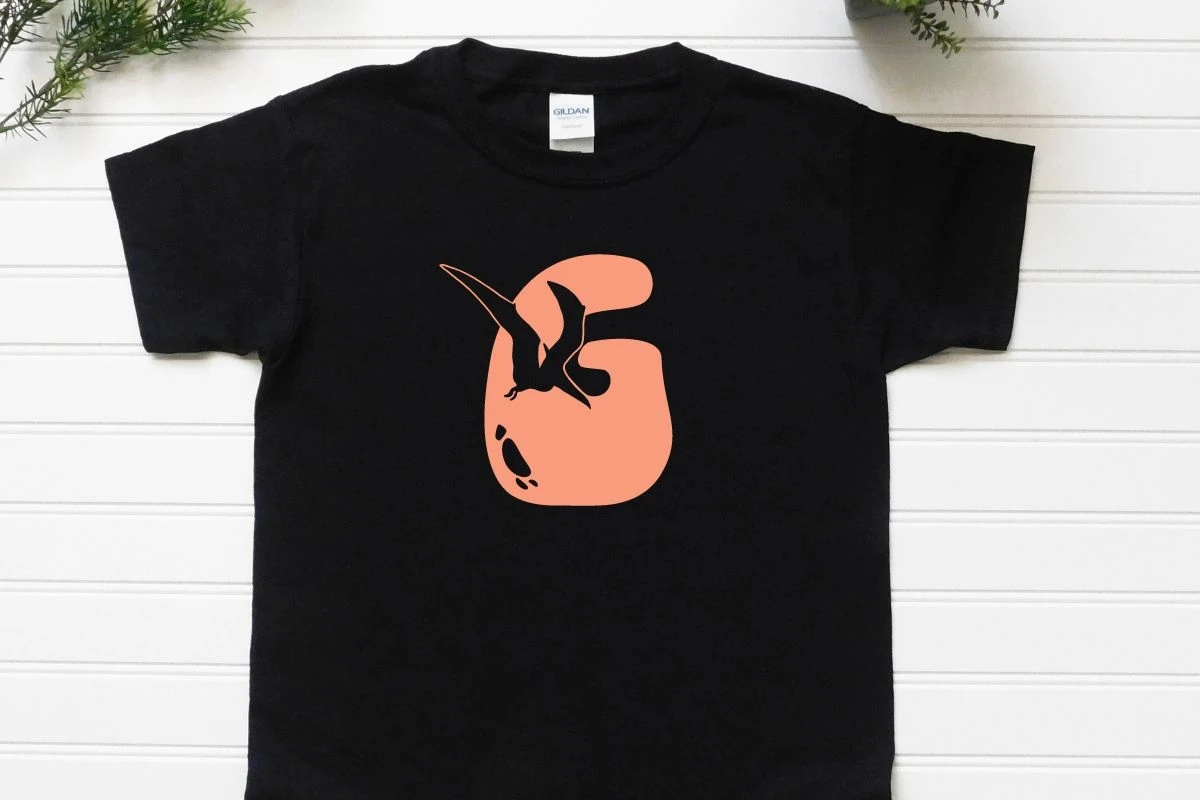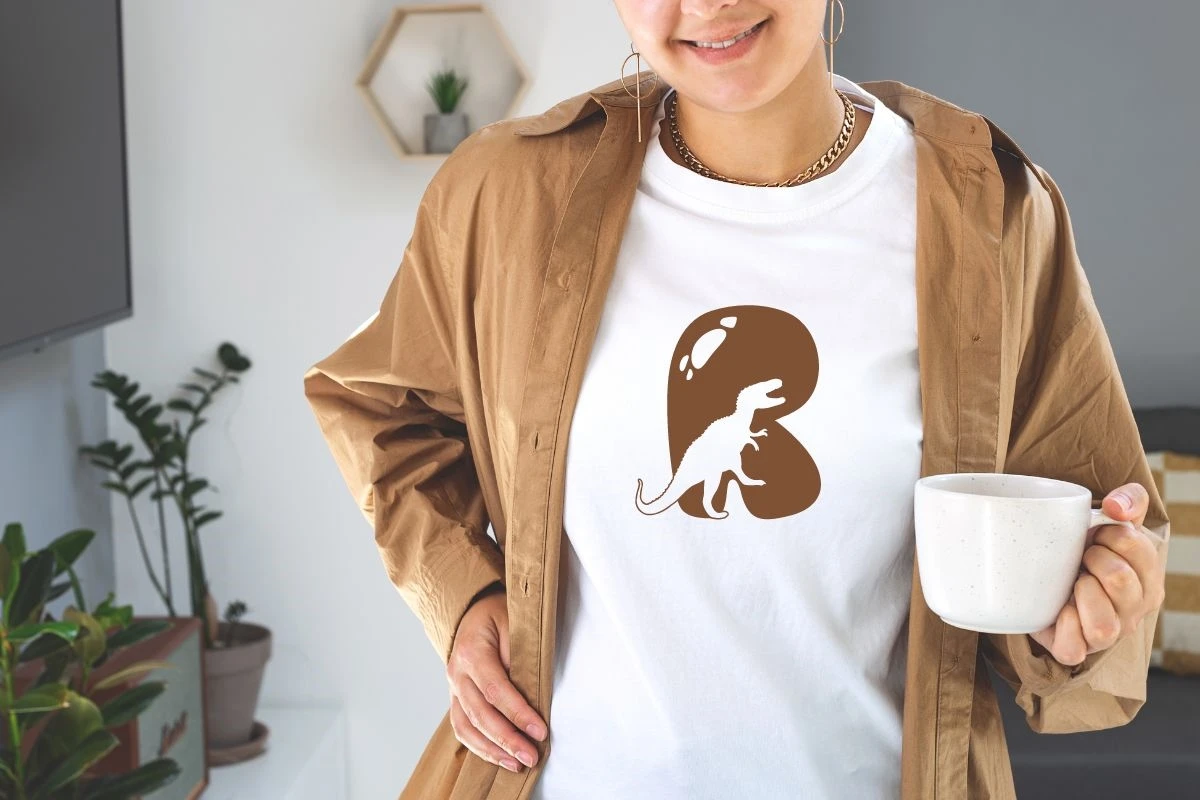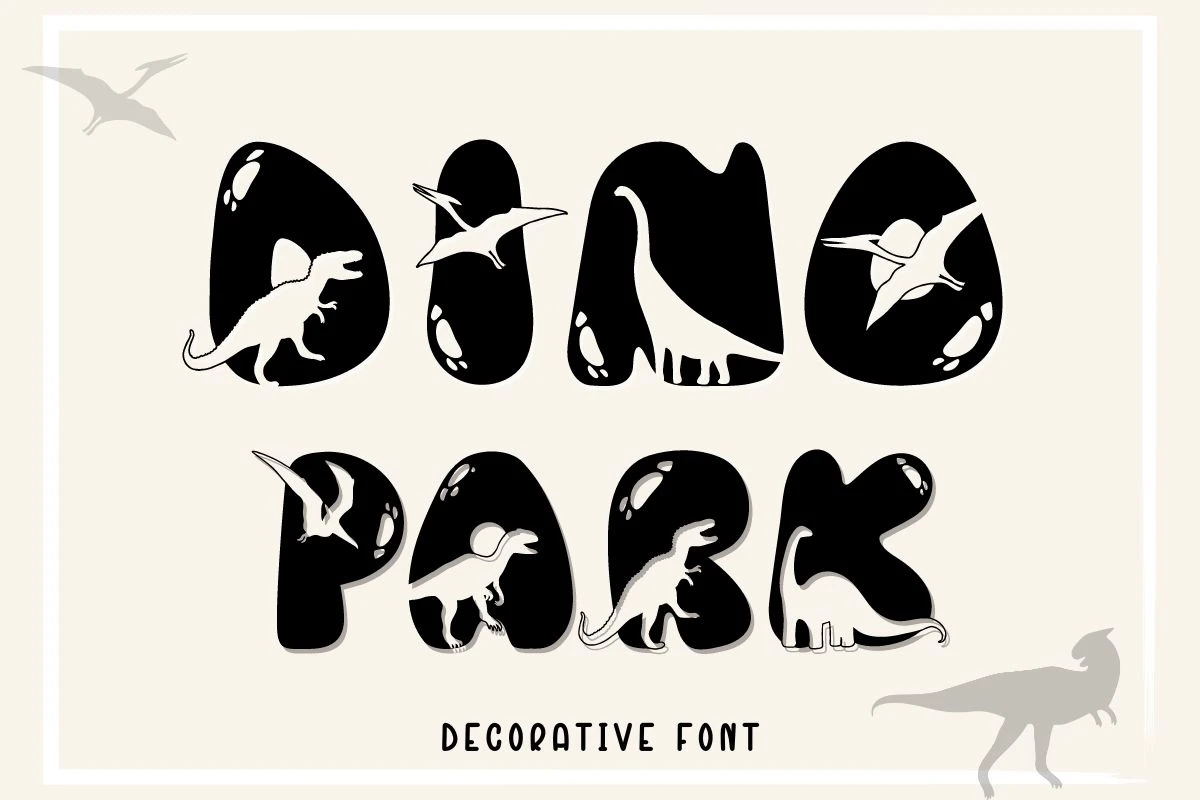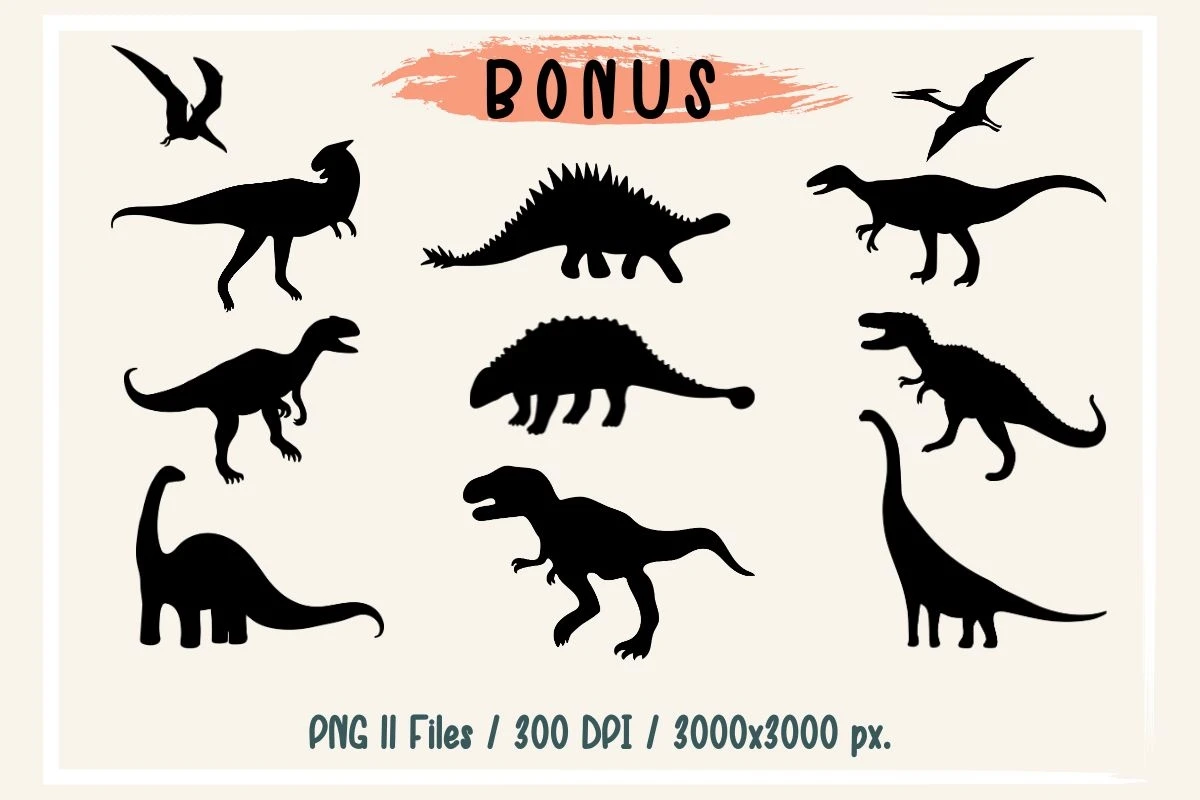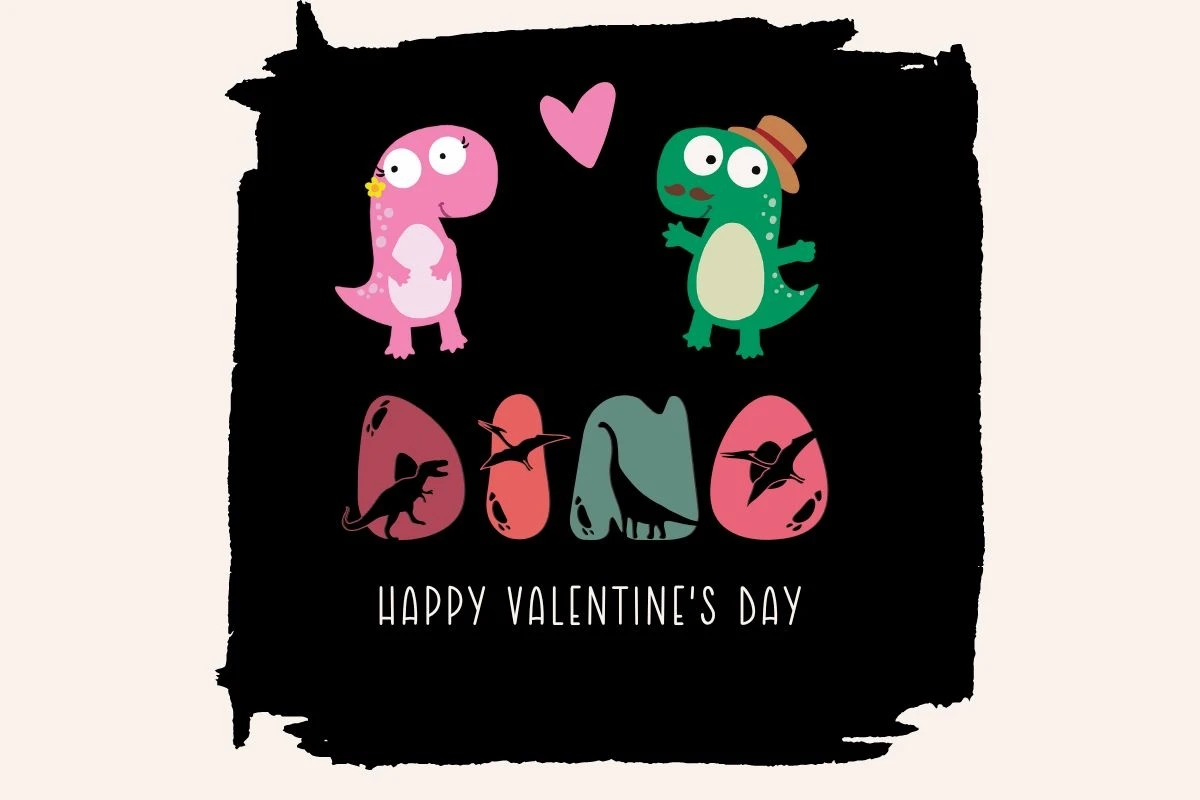
Dinopark is a cute decorative font that will help you enjoy and have fun with your designs. Perfect for creating a wide variety of new designs such as banners, content, mugs, cards, shirts, stationery, social media posts, and more!